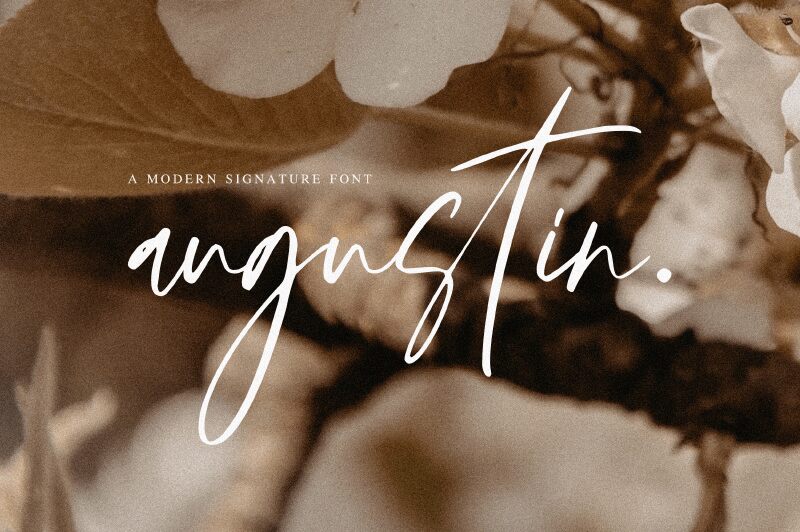
Augustin Regular
Augustin, a signature font created by Achmad Yani, offers an elegant and refined touch to any project.
With its light weight and condensed width, this font is perfect for adding a sophisticated and personal feel to wedding invitations, luxury brands, and high-end fashion magazines. Its graceful curves and unique letterforms make Augustin ideal for creating eye-catching logos or branding materials.
Elevate your design with Augustin's distinctive style that exudes class and exclusivity.